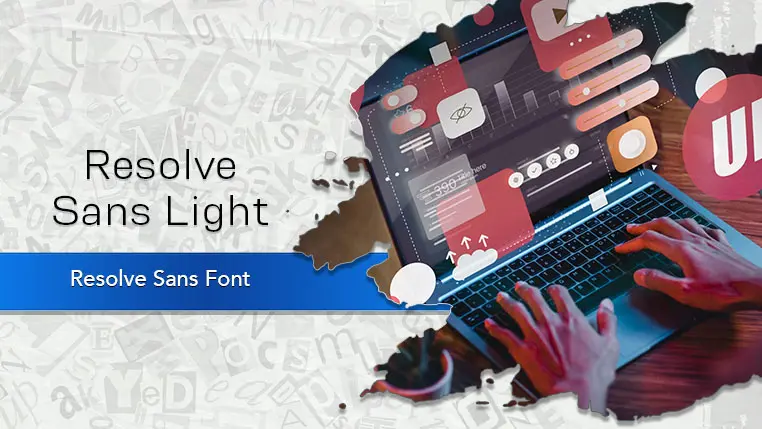
The Resolve Sans font family may be ideal for you if you enjoy working on an artistic design project. The lively, expressive look of this typeface, which was created by Fenotype, makes it ideal for Branding and Corporate Identity, Websites and UI/UX Design, Information Design. Perfect for magazines, newspapers, books, and reports. Its legibility across various weights and widths allows for clean body copy, impactful headlines, and clear informational hierarchy. Great for infographics, data visualization, and annual reports, where clarity and efficient communication of information are paramount. and other light-hearted visual projects.
Light are the one primary font styles of the Resolve Sans font family. You may build dynamic, visually appealing text layouts with the distinct flair that each style offers. With crisp, readable lines and a relaxed tone.